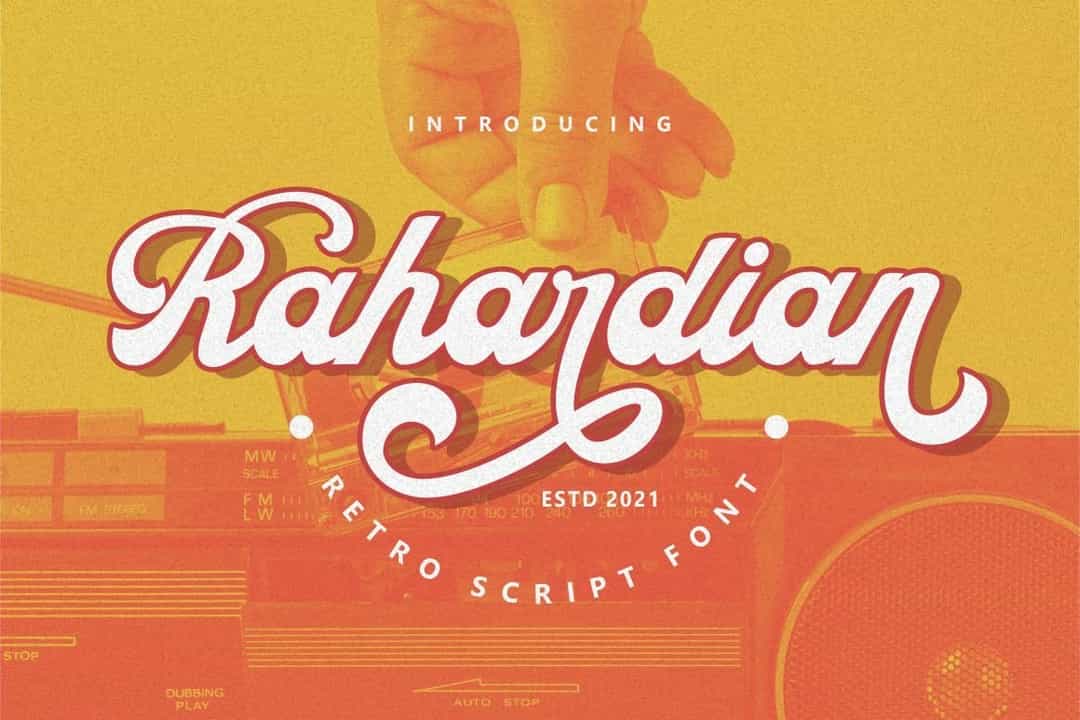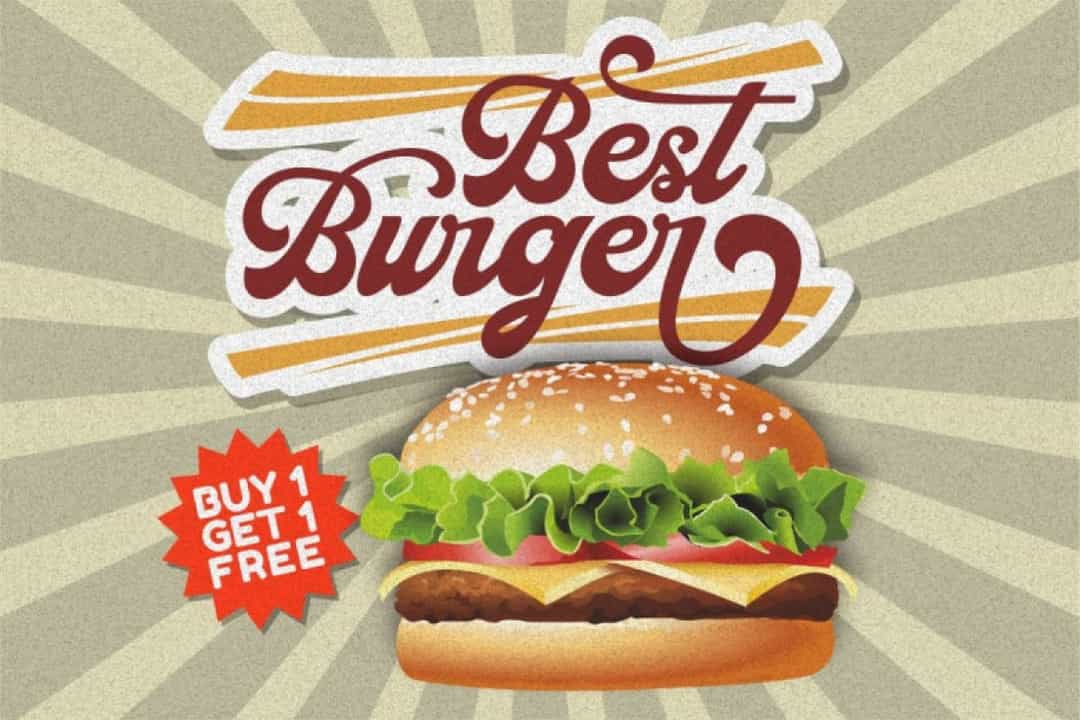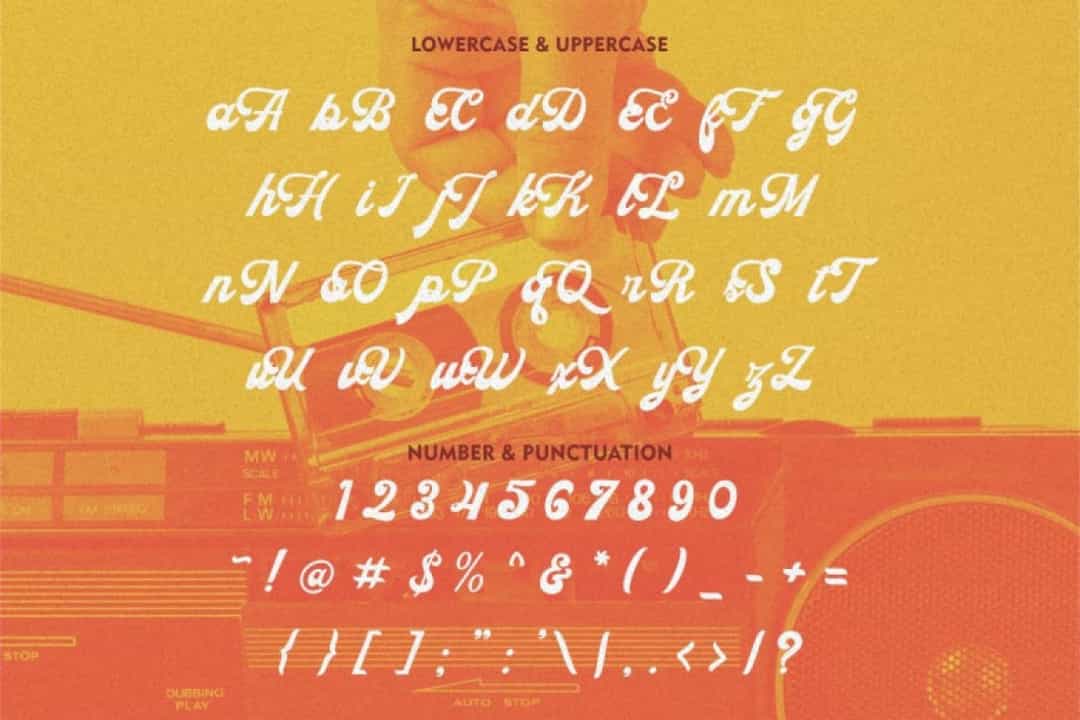
Rahardian is an elegant retro font designed to add style and vibrance to headlines and logotypes alike. This font exudes strength, confidence, and energy while adding lots of nostalgic appeal – plus, its PUA encoding allows for quick use of all Swashes and Glyphs!